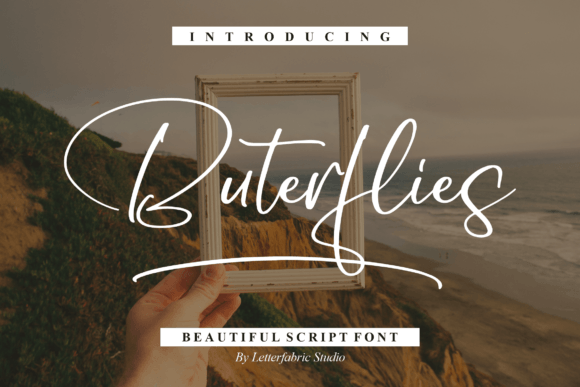
Unleash Your Creativity with the Elegant Buterflies Font
As a designer, there’s nothing quite like the thrill of bringing a new project to life. It’s that moment when the blank page transforms into a vibrant canvas, and your imagination runs wild. You’re in the zone, and nothing can stop you. But, have you ever felt like something was missing – a special touch that elevates your design from good to great?
That’s where the Buterflies Font comes in – a slim and exquisite handwritten font that adds a touch of elegance and sophistication to any project. With its stylish, graceful, and flowing design, this font will transport your creations to a new level of beauty and refinement. And, with its PUA encoding, you’ll have access to a world of amazing glyphs and ligatures at your fingertips.
Butterflies Font Key Features
- Font Family: Butterflies Font comes in a variety of font styles, including Regular, Bold, Italic, and Bold Italic.
- Character Set: The font supports a wide range of characters, including Latin, Cyrillic, and Greek alphabets, as well as punctuation and symbols.
- Unique Characteristics: The Butterflies Font features a unique, whimsical design with intricate details and flourishes, making it ideal for creative and artistic applications.
Butterflies Font Review
I recently had the chance to work with the Butterflies font, and I must say it’s a unique addition to any design project. ✨ The hand-drawn style gives it a whimsical feel that’s perfect for projects that require a touch of elegance and playfulness.
The font includes a range of characters, from letters to punctuation marks, and even some special characters like currency symbols and arrows. ✨ The font’s creator has also included a range of weights, from light to bold, which can be used to create a variety of visual effects.
- Unique hand-drawn style adds a touch of elegance and playfulness
- Range of characters and weights for flexibility
- Perfect for projects that require a touch of whimsy
- ⚠️ May not be suitable for projects that require a professional or formal tone
- ⚠️ Some characters may not be perfectly legible at small font sizes
Overall, I think the Butterflies font is a great addition to any design project that requires a touch of whimsy and elegance. While it may not be suitable for all projects, it’s definitely worth considering for those that need a unique and eye-catching font.
For a whimsical touch, use the “Butterflies Font” for headings or titles, and pair it with a simple font for body text.
For a creative touch, use the “Butterflies Font” for headings or titles, and pair it with a simple font for body text.
The “Butterflies Font” is perfect for:
Children’s books and educational materials
Artistic and creative projects
Use the font in a bold and playful way to add a touch of whimsy to your design.
Yes, the Butterflies Font is a highly customizable font. It supports a range of OpenType features, including font substitution, stylistic sets, and character variations. You can also use font editing software to customize the font to suit your specific design needs.